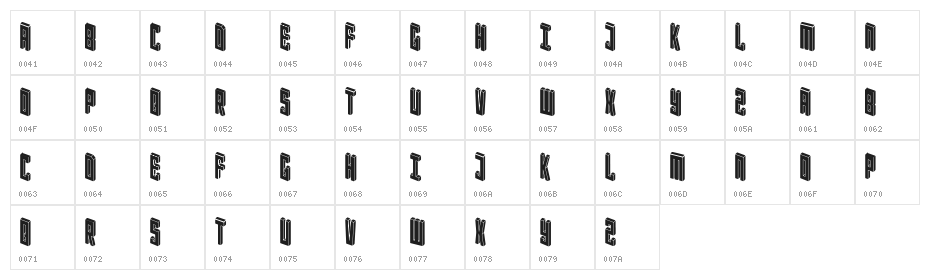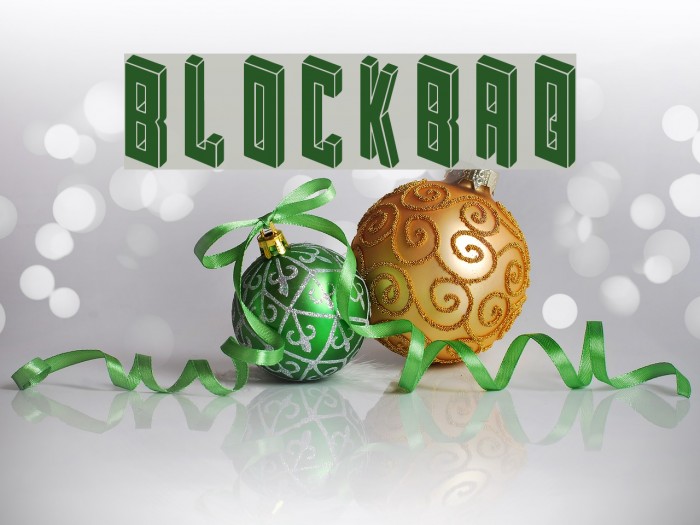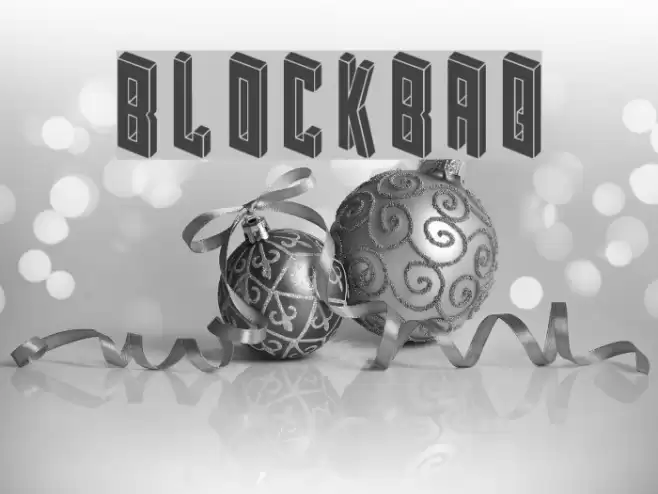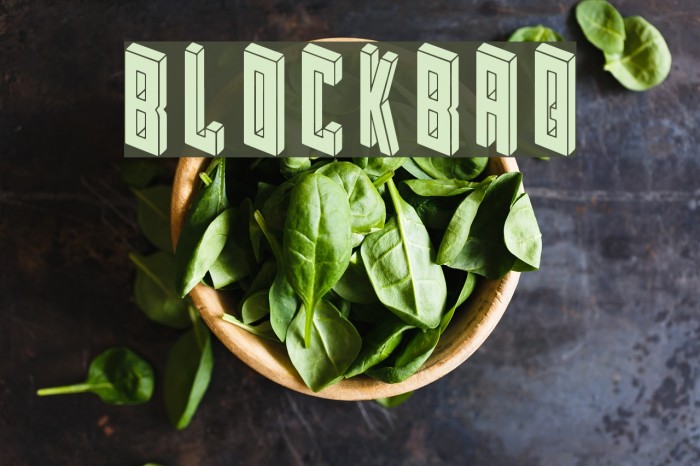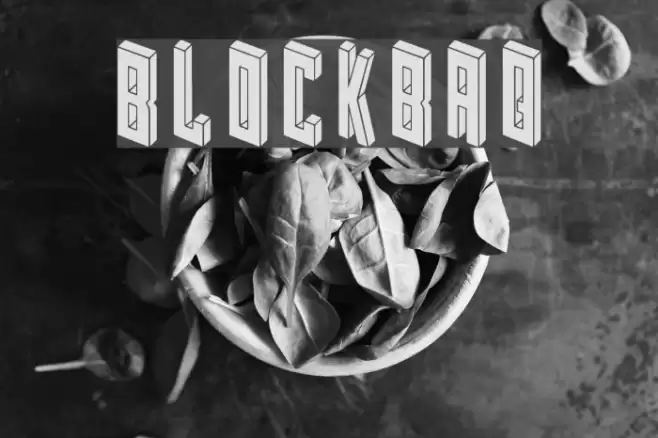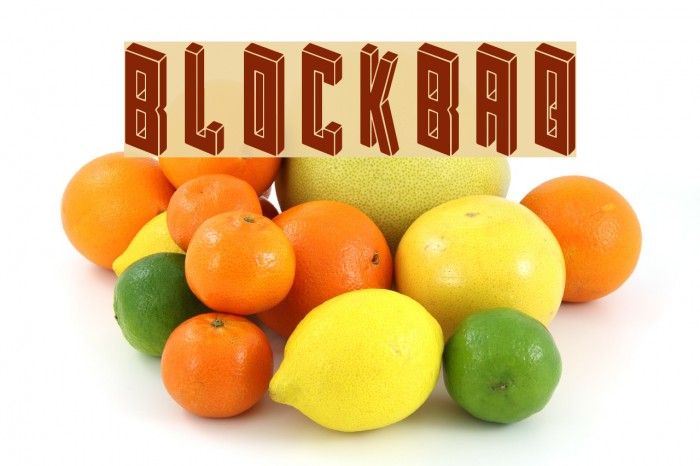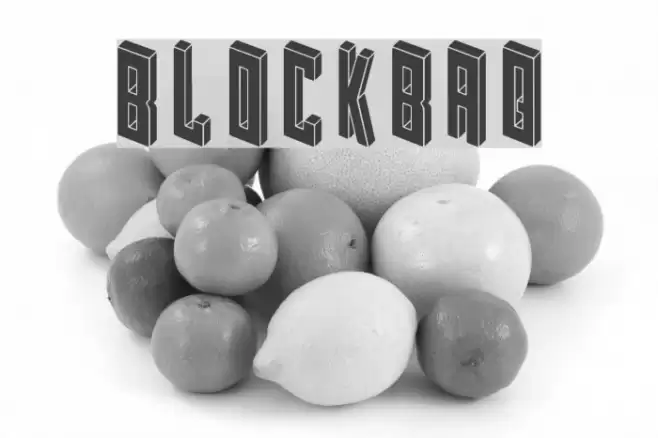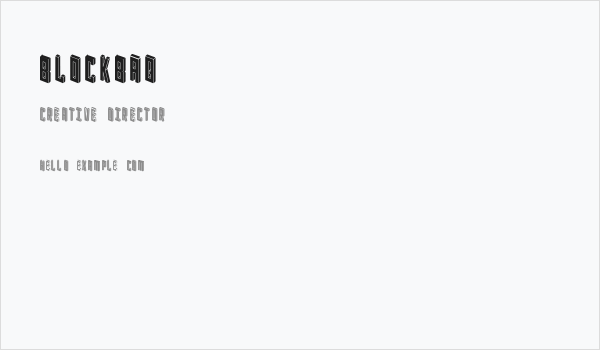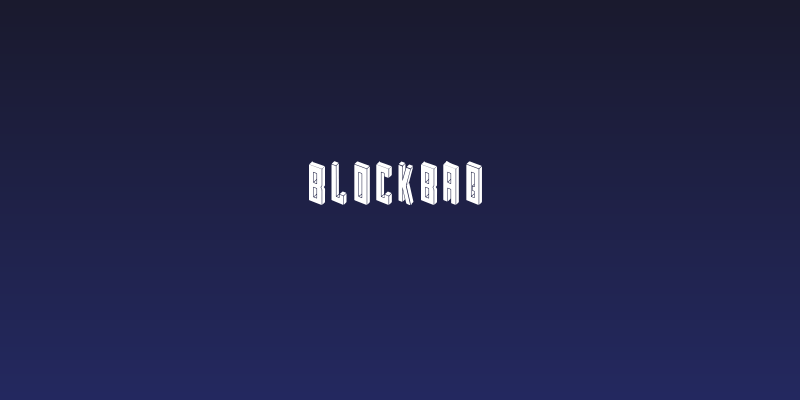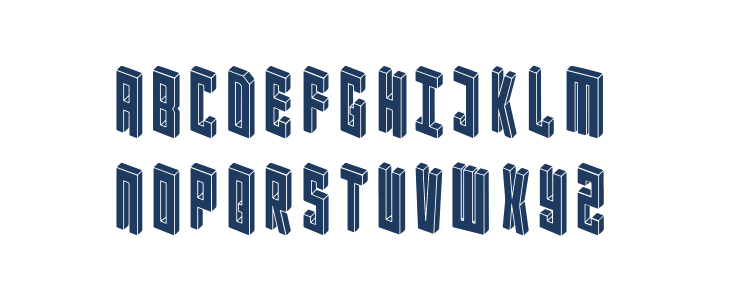
Blockbaq Font
Blockbaq Description
This font features a bold, three-dimensional block style that gives each character a striking, impactful appearance. The letters are designed with a shadow effect, creating a sense of depth and volume. The geometric shapes and sharp angles contribute to a modern and edgy look, making it stand out in any design. The uppercase letters are consistent in style, with a uniform height and width, while the lowercase letters maintain the same bold and blocky characteristics. The numbers and special characters are equally robust, ensuring a cohesive appearance across all text elements.